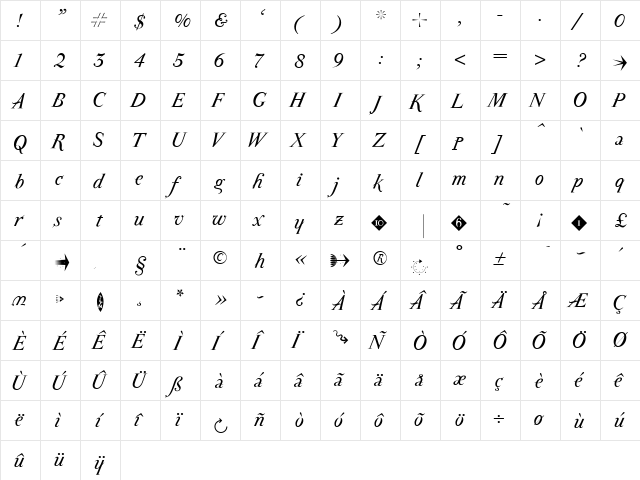
ParmaPetit Italic
Design Context for ParmaPetit Typeface
ParmaPetit is a composed and adaptable typeface that performs quietly and consistently across a wide range of design contexts. The slanted form adds forward momentum and visual energy.
Pro Tip: Use ParmaPetit for emphasis, pull quotes, and subheadings where its slanted energy can add rhythm to the layout.